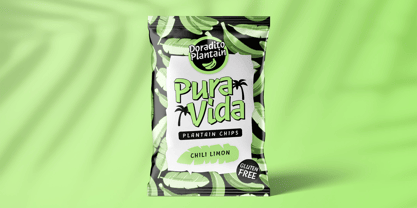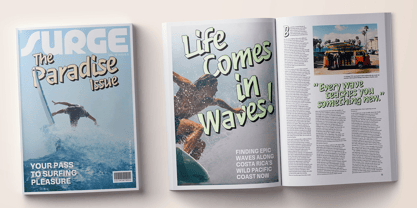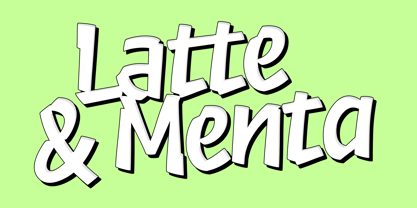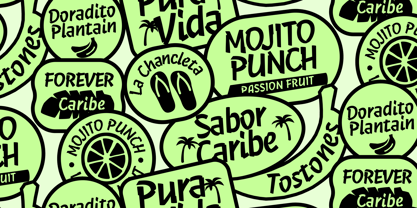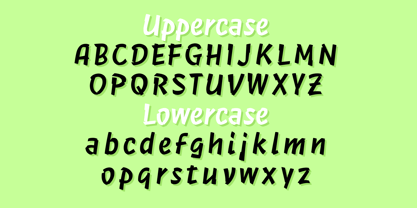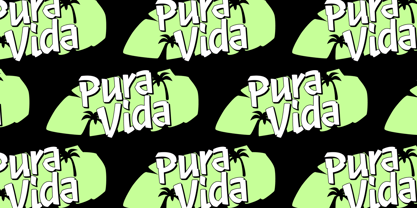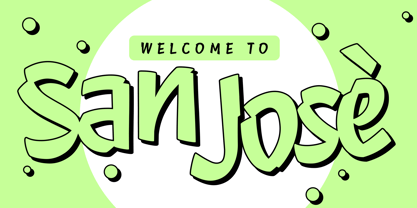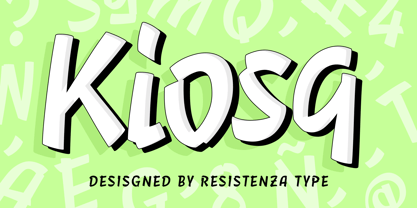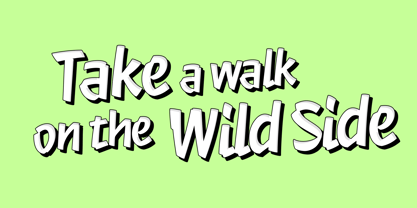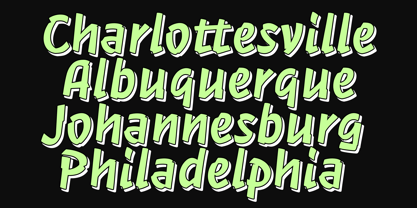
Kiosq
by Resistenza
The Kiosq Font Family was designed by Giuseppe Salerno, Paco González and published by Resistenza. Kiosq contains 1 styles. More about this family
A vibrant display typeface that captures the spirited essence of hand-painted signage with a tropical twist. Born from tiki culture and mid-century sign painting traditions, this font combines fluid brush strokes with confident calligraphic flair. The design features bold, three-dimensional letterforms with distinctive drop shadows that leap off the page, evoking the sun-drenched atmosphere of vintage tiki bars and beachside establishments. Each character displays the organic irregularities and authentic charm of hand-painted signage, where skilled painters wielded flat brushes to create eye-catching displays. Kiosq's slightly condensed proportions and energetic baseline variations add a lively, approachable personality that's both nostalgic and contemporary. The calligraphic influence is reflected in confident stroke endings and subtle line weight modulation, while the sign painting heritage shines through bold, unapologetic letterforms. With comprehensive Latin character coverage, Kiosq is perfect for headlines, branding, packaging, and projects that demand tropical warmth and vintage charm. Whether designing for beach resorts, craft breweries, or retro-inspired brands, this font brings authentic hand-lettered spirit to modern typography.
Designers: Giuseppe Salerno, Paco González
Foundry: Resistenza